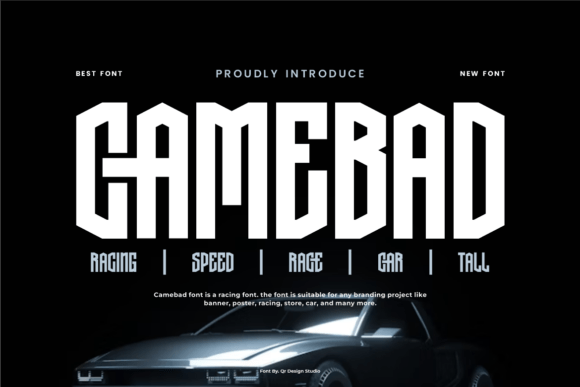
Camebad Font: Unleash the Power of Speed and Adrenaline in Your Designs
In the world of typography, fonts play a crucial role in conveying the tone and personality of a brand or design. When it comes to creating bold, eye-catching, and high-energy designs, Camebad Font is the perfect choice. This modern racing typeface is built for speed, power, and adrenaline, making it ideal for a wide range of applications, from racing themes and esports logos to automotive projects and futuristic branding.
What is Camebad Font?
Camebad Font is a bold, modern racing typeface designed to capture the energy of fast cars, futuristic gaming, and high-impact branding. Its tall, angular letters and strong geometric design make it a standout in the world of typography. With its sharp edges and bold presence, Camebad Font is perfect for titles, headlines, and branding where attention and strength are key.
Key Features of Camebad Font
- Bold and Modern Design: Camebad Font boasts a bold and modern design that is sure to grab attention.
- Tall and Angular Letters: The font’s tall, angular letters give it a unique and dynamic look.
- Strong Geometric Design: The font’s strong geometric design makes it perfect for a wide range of applications.
- Perfect for High-Impact Branding: Camebad Font is designed to make a statement, making it perfect for high-impact branding.
Use Cases for Camebad Font
Camebad Font is a versatile typeface that can be used in a wide range of applications, including:
- Racing Themes: Camebad Font is perfect for racing themes, including racing games, racing logos, and racing-inspired branding.
- Esports Logos: The font’s bold and modern design makes it ideal for esports logos and branding.
- Automotive Projects: Camebad Font is perfect for automotive projects, including car logos, car branding, and automotive-inspired designs.
- Futuristic Layouts: The font’s futuristic design makes it perfect for futuristic layouts, including sci-fi inspired designs and futuristic branding.
- Banners and Posters: Camebad Font is perfect for creating eye-catching banners and posters.
- Apparel and Merchandise: The font’s bold design makes it ideal for apparel and merchandise, including t-shirts, hats, and other accessories.
- YouTube Covers and Twitch Overlays: Camebad Font is perfect for creating eye-catching YouTube covers and Twitch overlays.
- Social Media Graphics: The font’s bold design makes it ideal for social media graphics, including Facebook posts, Twitter headers, and Instagram stories.
Why Choose Camebad Font?
There are many reasons why Camebad Font is the perfect choice for your next design project:
- Unique and Dynamic Design: Camebad Font boasts a unique and dynamic design that is sure to grab attention.
- High-Impact Branding: The font’s bold design makes it perfect for high-impact branding and marketing materials.
- Versatile: Camebad Font is a versatile typeface that can be used in a wide range of applications.
- Easy to Read: Despite its bold design, Camebad Font is easy to read, even at small sizes.
Tips and Tricks for Using Camebad Font
Here are some tips and tricks for using Camebad Font:
- Use it Sparingly: Camebad Font is a bold font, so use it sparingly to avoid overwhelming your design.
- Pair it with Other Fonts: Pair Camebad Font with other fonts to create a unique and dynamic design.
- Experiment with Colors: Experiment with different colors to find the perfect look for your design.
- Pay Attention to Legibility: Make sure to pay attention to legibility, especially when using the font at small sizes.
Camebad Font is a powerful and versatile typeface that is perfect for a wide range of design applications. Its bold and modern design, tall and angular letters, and strong geometric design make it a standout in the world of typography. Whether youβre working on a racing game, sports branding, automotive designs, or futuristic layouts, Camebad Font adds intensity and precision to your project. Get ready to fuel your creativity with this powerful racing-inspired font.